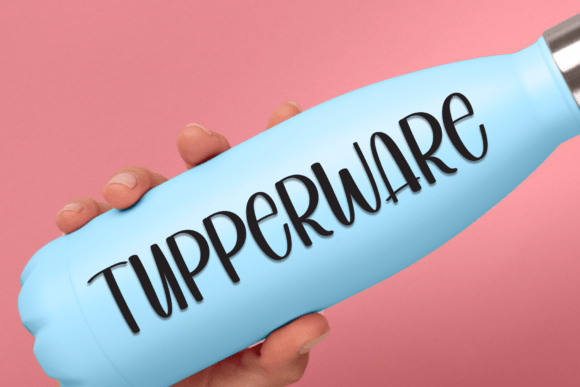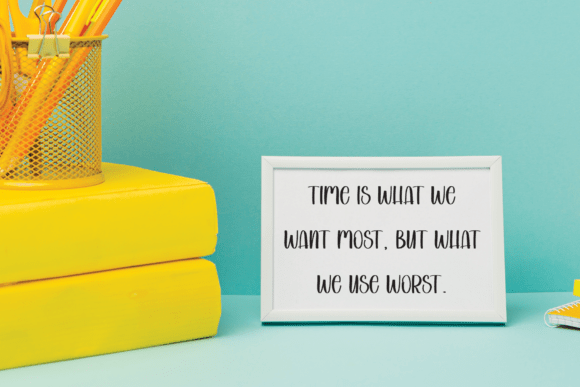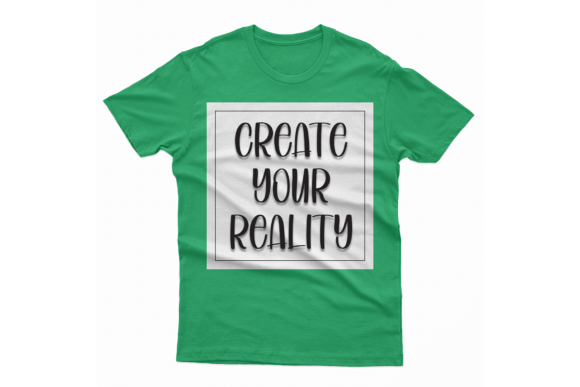
Introduction to Picnic Holiday Font
Do you ever find yourself rummaging through your design library, searching for the perfect font to capture the essence of a summer afternoon? Perhaps you’re brainstorming ideas for a picnic-themed party or a spring-inspired product packaging campaign. Whatever your creative project, we’re here to introduce you to the perfect companion: the Picnic Holiday Font.
This delightful handwritten font exudes a carefree, cheerful vibe that’s sure to transport your audience to a sunny meadow. With its tall letters and rounded ends, it’s the ideal choice for designers seeking a design resource that’s both high-quality and effortlessly fun. Whether you’re working on a free download or a commercial project, the Picnic Holiday Font is a valuable addition to your creative arsenal, especially when paired with a transparent background for a seamless look.
Key Features of Picnic Holiday Font
- High-quality, detailed design perfect for a creative project
- Designed with a unique, whimsical style, making it ideal for adding a playful touch to your design
- Includes a range of characters, including uppercase and lowercase letters, numbers, and punctuation marks
Honest Review: Picnic Holiday Font
As a designer, I’m always on the lookout for unique and high-quality design resources to elevate my creative projects. The Picnic Holiday Font caught my eye, and I was excited to give it a try.
What works well: ✨ The font is incredibly versatile and perfect for projects that require a fun, playful vibe. It’s great for headings, titles, and even body text. The high-quality design and transparent background make it easy to work with, and the free download is a definite bonus.
Some limitations: ⚠️ While the font is beautiful, it’s not ideal for formal or professional projects. The whimsical design may not be suitable for clients who prefer a more conservative aesthetic. Additionally, the font may not be as legible at smaller font sizes, which is worth considering when using it for body text.
Overall, I’m impressed with the Picnic Holiday Font. It’s a great addition to any designer’s toolkit, especially for creative projects that require a bit of whimsy. Just be mindful of its limitations, and it’ll be a valuable resource in your design arsenal.
- Perfect for playful and fun projects
- High-quality design with transparent background
- May not be suitable for formal or professional projects
- Not ideal for small font sizes
Tips for Getting the Most Out of Picnic Holiday Font
To get the most out of the Picnic Holiday Font, experiment with different font sizes and styles to create visual interest. Use it in combination with other design elements, such as images and graphics, to create a cohesive and engaging design. Don’t be afraid to get creative and try out new things!
Common Use Cases for Picnic Holiday Font
The Picnic Holiday Font is perfect for a variety of creative projects, including holiday cards, summer-themed posters, and social media graphics. Its high quality and transparent background make it a great choice for designers and non-designers alike, and its free download makes it an accessible design resource for everyone.